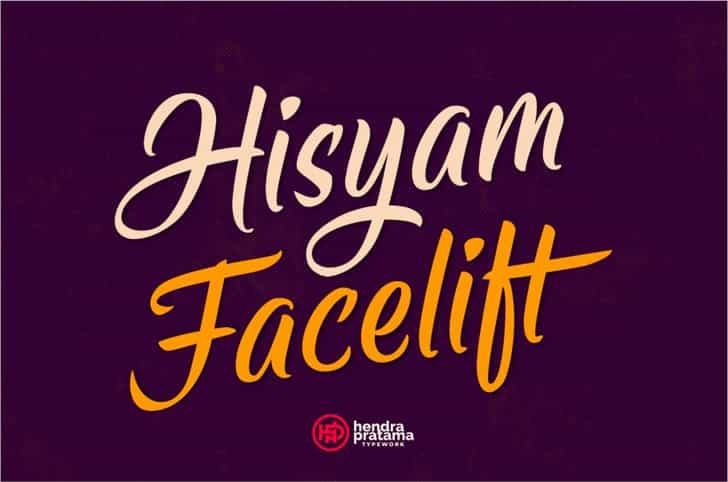
Introducing Hisyam Font. It is created and posted by hype work. It is a beautiful brush pen calligraphy font that is bold and has varying styles for its weight. Hisyam Facelift Script is simplified and produced in the upright style and designed for logotype and header design. ideal for signature, stationery, logo, typography quotes, magazine or book cover, website header, clothing, branding, packaging design and many more.